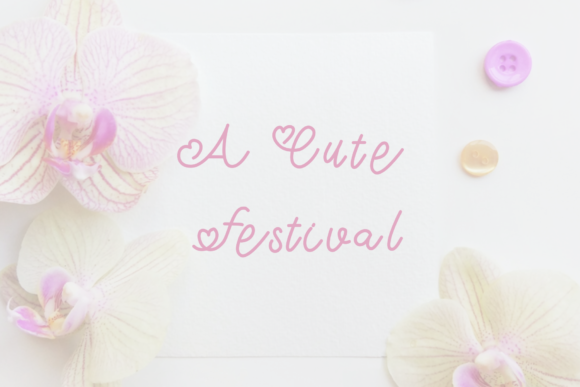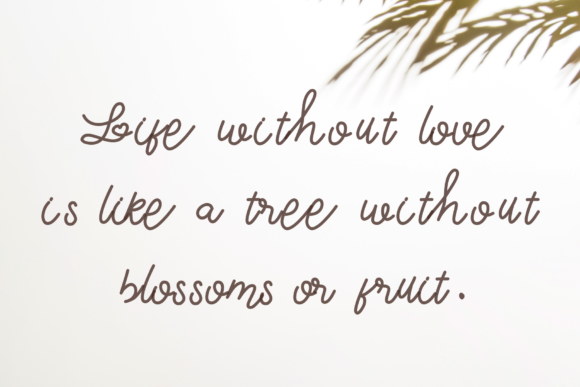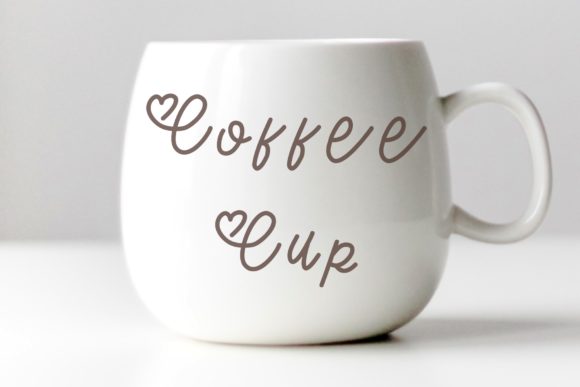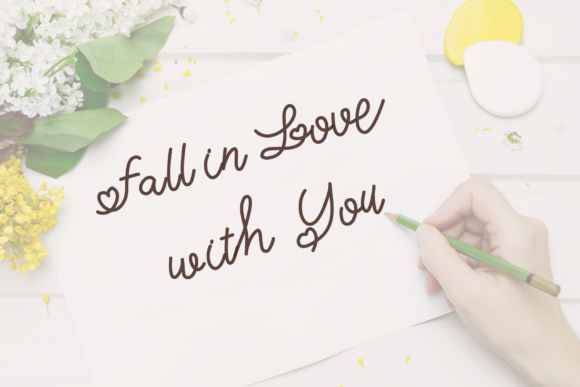
Introducing Be Love Font: The Ultimate Romantic and Delicate Handwritten Font
Are you a designer or crafter looking for a font that exudes romance and elegance? Look no further than Be Love Font, a beautiful and delicate handwritten font that is sure to capture your heart. With its sweet and well-rounded letters, Be Love Font is a masterpiece that will make your designs stand out from the crowd.
The Charm of Be Love Font
Be Love Font is a romantic and delicate handwritten font that is perfect for creating spectacular designs. Its incredibly versatile style makes it suitable for a wide range of projects, from wedding invitations and romantic getaways to fashion branding and packaging. The font’s sweet and well-rounded letters are designed to evoke feelings of love and warmth, making it an ideal choice for designers and crafters who want to create emotional connections with their audience.
Key Features of Be Love Font
- Romantic and delicate design: Be Love Font features a beautiful, handwritten design that is both romantic and delicate.
- Sweet and well-rounded letters: The font’s letters are sweet and well-rounded, making it perfect for creating designs that require a touch of elegance.
- Incredibly versatile style: Be Love Font is incredibly versatile, making it suitable for a wide range of projects and designs.
- Easy to read and use: The font is easy to read and use, making it perfect for designers and crafters of all skill levels.
How to Use Be Love Font
Be Love Font is perfect for a wide range of design projects, including:
- Wedding invitations and stationery: Create beautiful and romantic wedding invitations and stationery with Be Love Font.
- Fashion branding and packaging: Use Be Love Font to create stunning fashion branding and packaging that stands out from the crowd.
- Social media graphics and posts: Create engaging social media graphics and posts with Be Love Font that will capture your audience’s attention.
- Signs and displays: Use Be Love Font to create beautiful signs and displays that will make your message stand out.
Why Choose Be Love Font?
There are many reasons why you should choose Be Love Font for your design projects. Here are just a few:
- Unique and elegant design: Be Love Font features a unique and elegant design that will make your designs stand out from the crowd.
- High-quality and versatile: The font is high-quality and versatile, making it perfect for a wide range of design projects.
- Easy to use and read: Be Love Font is easy to use and read, making it perfect for designers and crafters of all skill levels.
- Perfect for romantic designs: The font is perfect for creating romantic designs that require a touch of elegance and sophistication.
| Font Name | Be Love Font |
| Author | KateType |
In conclusion, Be Love Font is a beautiful and delicate handwritten font that is perfect for designers and crafters who want to create romantic and elegant designs. With its sweet and well-rounded letters, incredibly versatile style, and ease of use, Be Love Font is an ideal choice for a wide range of design projects. Whether you’re creating wedding invitations, fashion branding, or social media graphics, Be Love Font is sure to make your designs stand out from the crowd.
- What is Be Love Font?: Be Love Font is a romantic and delicate handwritten font that is perfect for creating spectacular designs.
- Is Be Love Font easy to read and use?: Yes, Be Love Font is easy to read and use, making it perfect for designers and crafters of all skill levels.